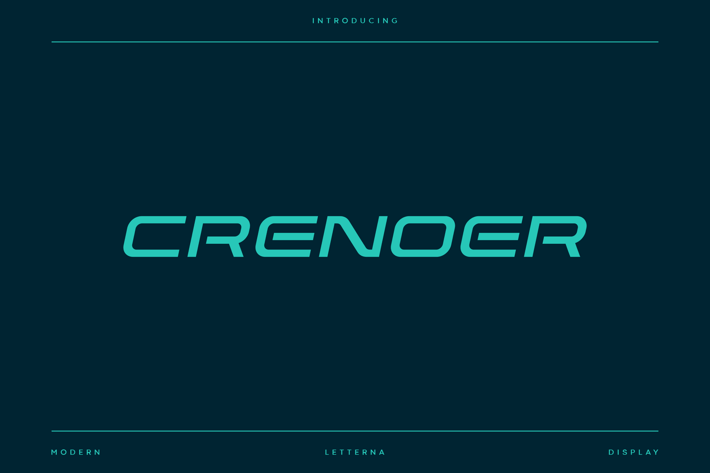
Crenoer - Modern Sport Typeface
Crenoer is a modern display font built specifically for sports branding, with minimalist and elegant style. This font comes with minimalist, sophisticated, elegant and fresh all-caps style, it will make your design more memorable, it’s perfect adding this font for logo, branding, poster, magazine, digital ads, tech, action sport and future themes.